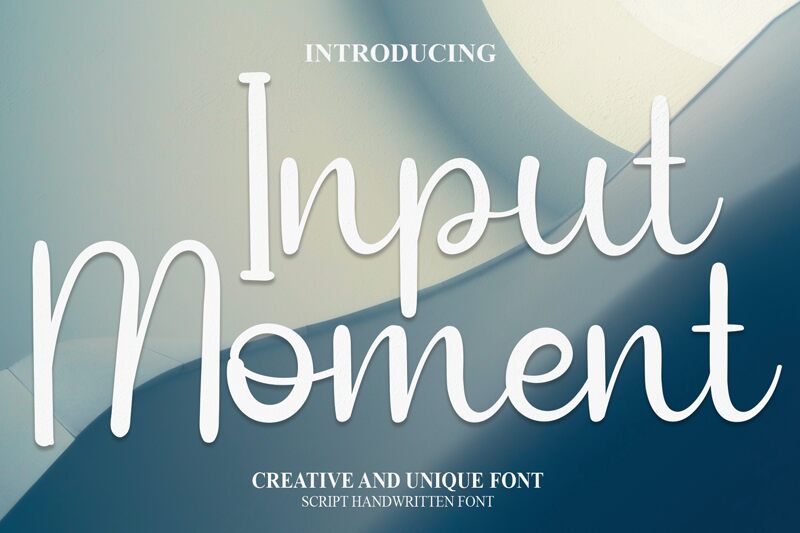
Input Moment
Input Moment, crafted by Belina Studio, is a stunning calligraphic font that exudes elegance and sophistication. Its semi-light weight makes it perfect for projects that require a balance of subtlety and flair. Whether you're creating wedding invitations, fashion branding or elegant packaging designs, Input Moment will add the perfect touch of refinement to your work. This font's graceful curves and delicate lines will draw attention to your message while maintaining a sense of understated charm. With Input Moment, you'll be able to make a lasting impression on your audience every time.
the latest style letters are perfect for wall displays, wedding invitations, social media post logos, advertisements, product packaging, product designs, labels, photography, watermarks, invitations, stationery, and any project that requires taste handwriting.